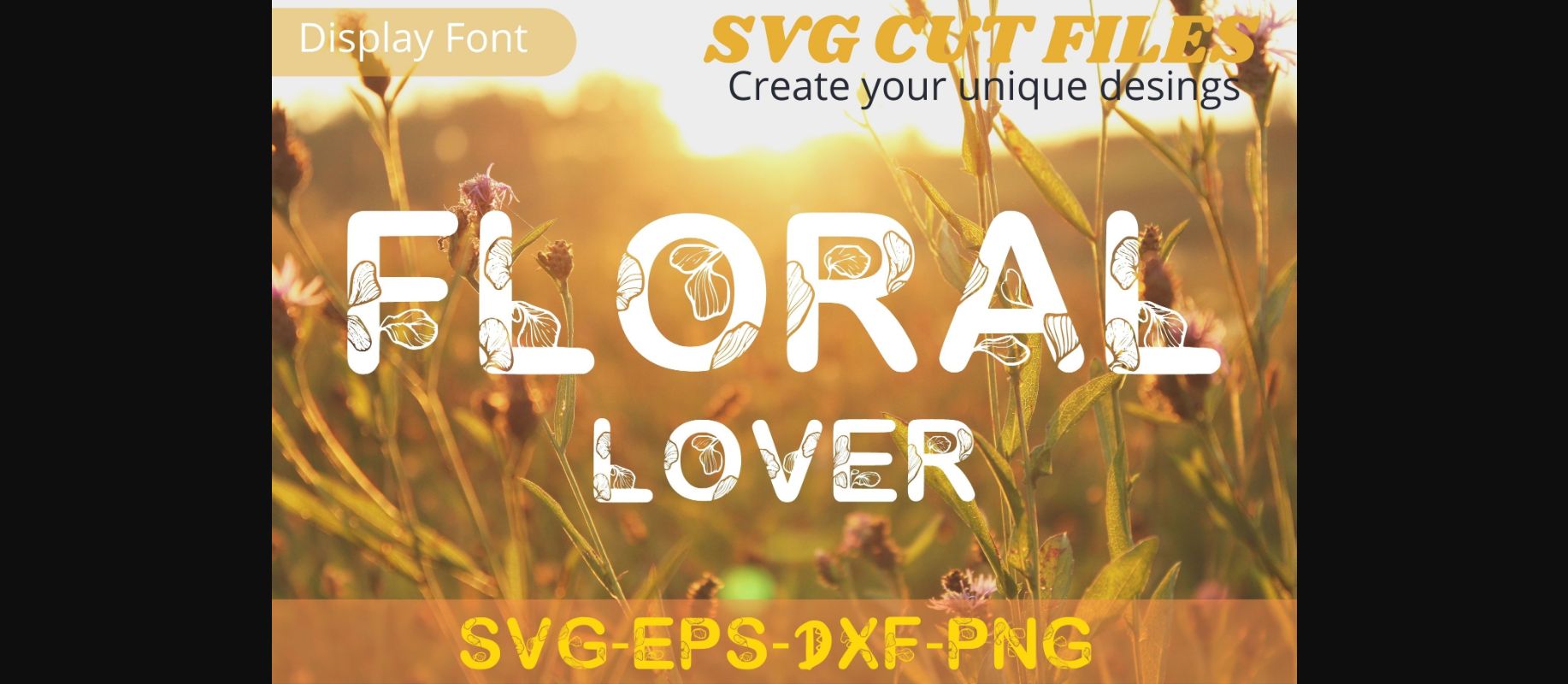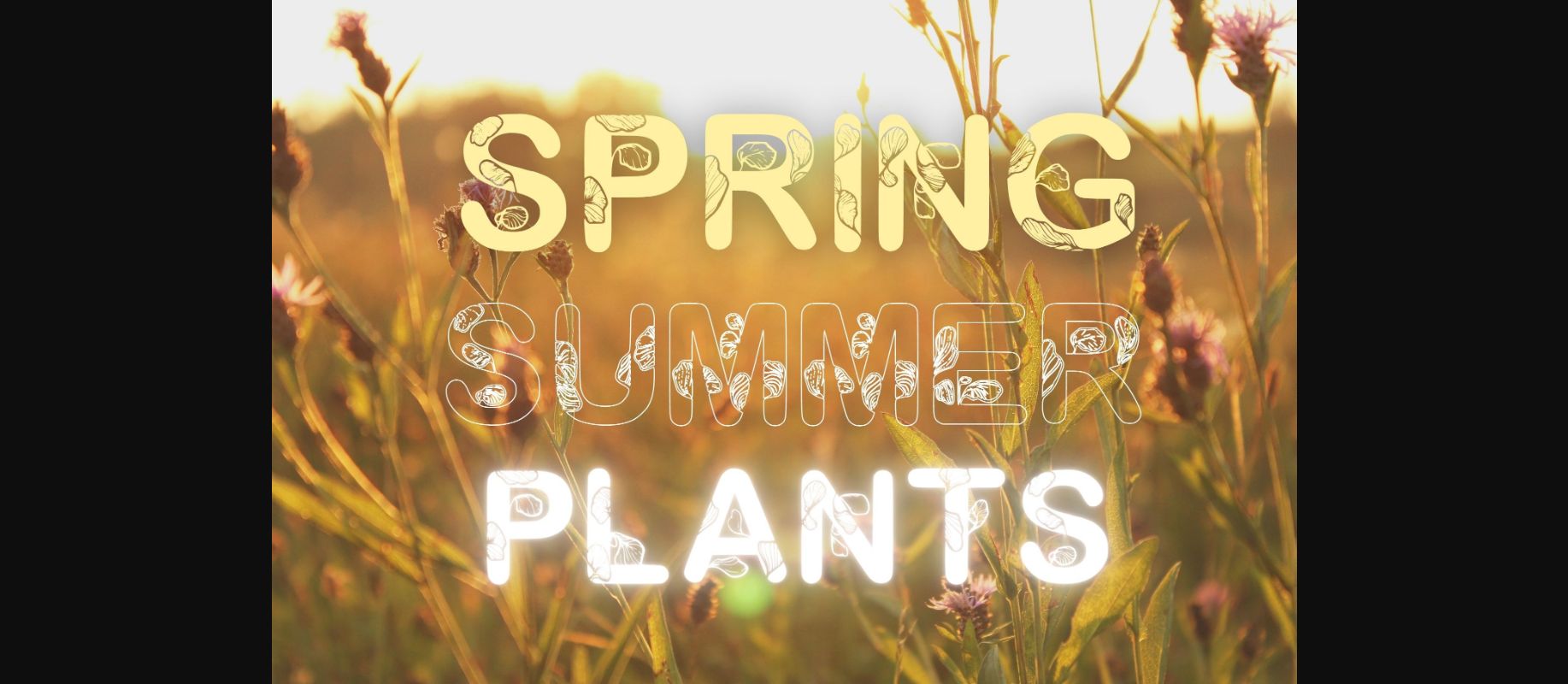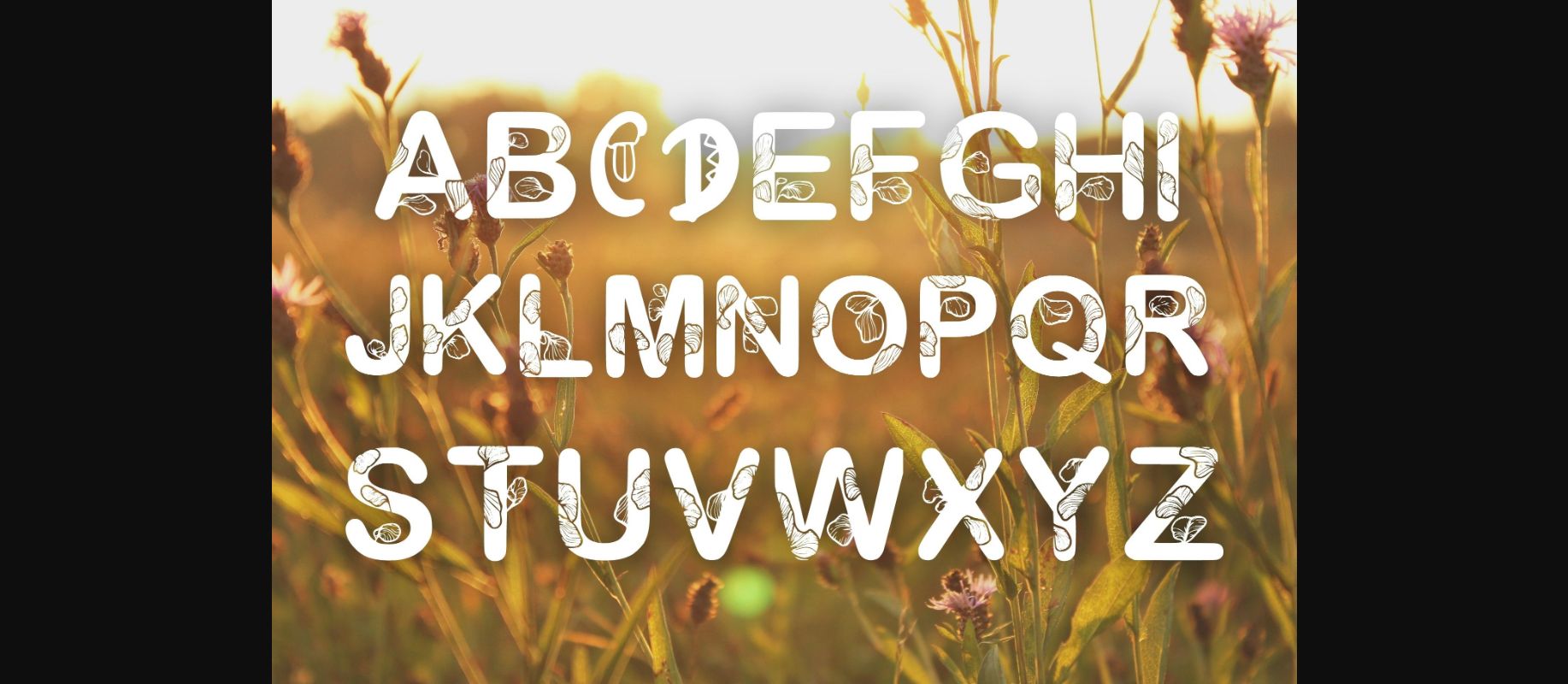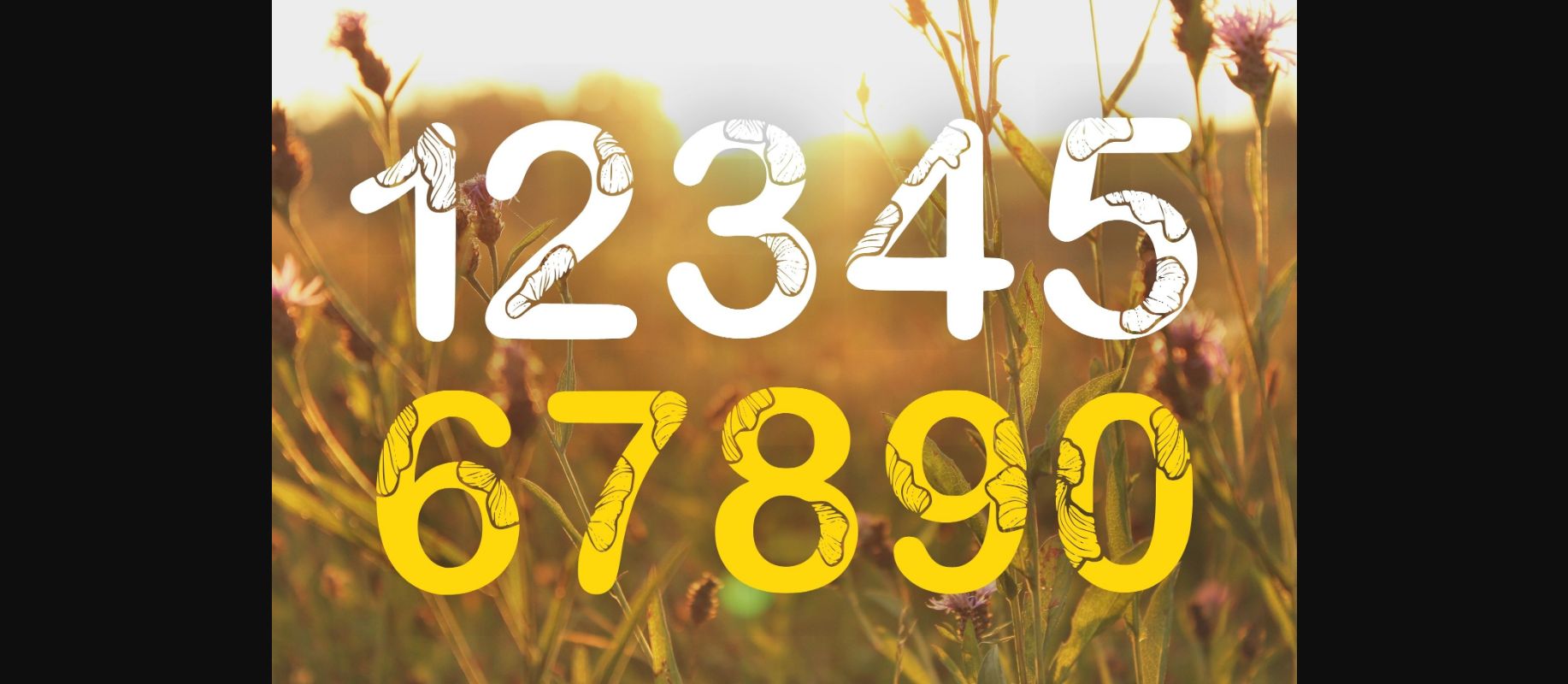
Floral Lover is a superb decorative font inspired by nature. Use this font for any crafting project that requires a personalized look! Your options are limitless!